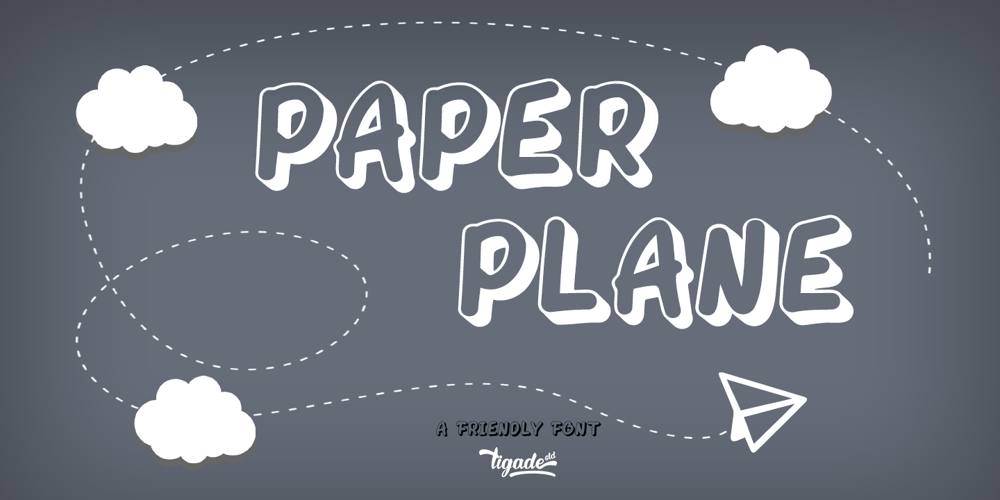
Paper Plane Font Family was designed by Doli Harahap and published by Tigade Std. Paper Plane contains 1 styles and family package options. Paper Plane is a fun and retro styled display font. This font is perfect for children themed designs, invitations, t-shirt design and some other cute ideas.